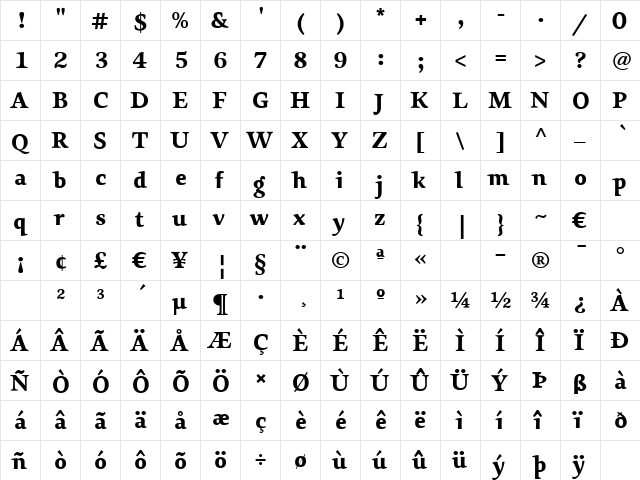
Sovereign-Black Regular
Design Context for Sovereign-Black Typeface
Sovereign-Black takes a measured approach to typography — its balanced proportions and neutral character make it a reliable workhorse for both digital and print work.